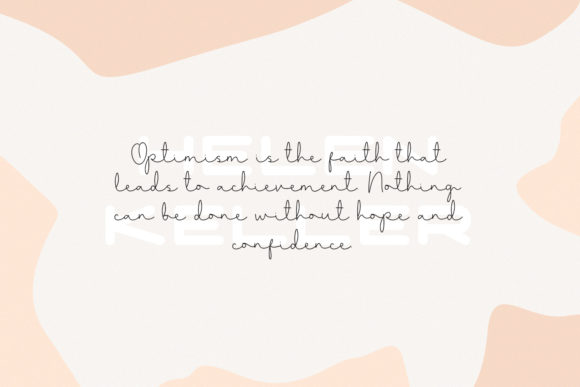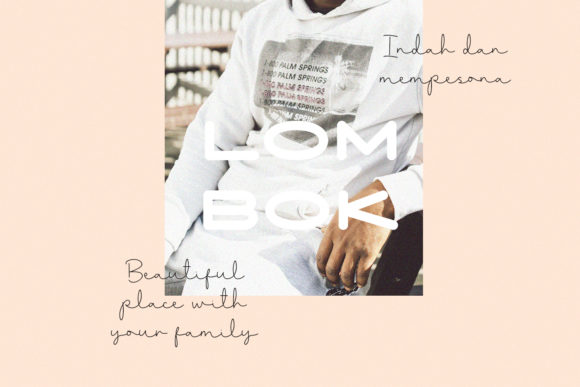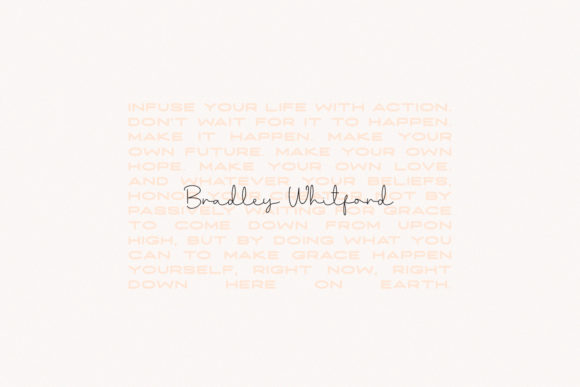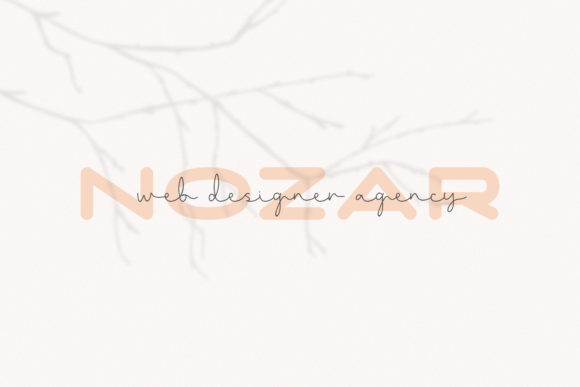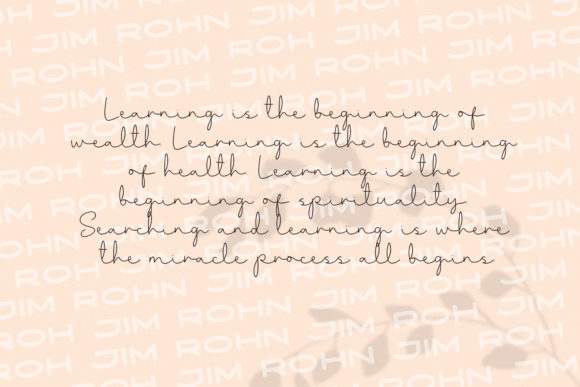
Introduction to Muiden Castle Duo Font Font
Fonts play a crucial role in design, and the Muiden Castle Duo Font font is a typeface that brings both character and versatility to any project. Whether you’re working on a branding project, a website, or a print design, the Muiden Castle Duo Font font offers a unique style that can elevate your work.
Muiden Castle is a beautiful and lovely font duo with an authentic and contemporary feel.
Key Features of Muiden Castle Duo Font Font
Why Choose Muiden Castle Duo Font Font?
The Muiden Castle Duo Font font is more than just a typeface – it’s a design tool that helps you communicate your message with style and clarity. Its unique character set and versatile design make it suitable for a wide range of applications, from elegant invitations to bold headlines.
With its carefully crafted letterforms and balanced proportions, the Muiden Castle Duo Font font ensures readability and visual appeal across all mediums.
What makes Muiden Castle Duo Font font special?
The Muiden Castle Duo Font font stands out with its unique design, exceptional readability, and versatility across various design applications.